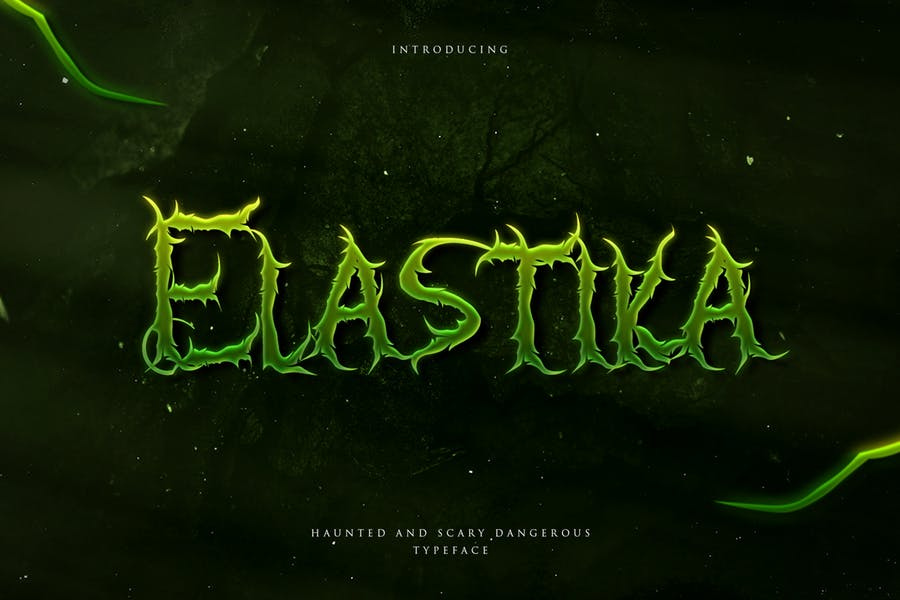
Elastika - Haunted Hand Drawing Display Typeface
Elastika Haunted Hand Drawing Display Typeface is perfect for horror movie posters, haunted attraction branding, Halloween marketing campaigns, spooky event invitations, gothic band merchandise, eerie game interfaces, supernatural book covers, creepy illustration projects, and atmospheric entertainment materials.
What makes Elastika Haunted Hand Drawing Display Typeface exciting is its spine-chilling ability to evoke supernatural dread through distorted, hand-drawn letterforms that appear to writhe and twist with otherworldly energy. The font features unnervingly elastic shapes with haunting irregularities that create the unsettling impression of letters drawn by ghostly hands or warped by supernatural forces. Its disturbing visual elasticity and eerie hand-drawn character make it perfect for brands that want to communicate psychological horror, supernatural terror, and the unsettling atmosphere of haunted environments while creating unforgettable experiences that genuinely frighten and captivate audiences.
Elastika Haunted Hand Drawing Display Typeface family includes various terrifying weights and distorted variations, often featuring supernatural alternates and haunting decorative elements. The family may include ghostly symbols, spectral ornaments, and elastic ligatures that amplify the font's frightening aesthetic, providing designers with comprehensive options for creating genuinely scary typographic compositions that capture the essence of supernatural horror and psychological terror.
This hauntingly elastic typeface has gained recognition among horror entertainment brands and supernatural-themed businesses seeking authentically terrifying typography solutions. Elastika Haunted Hand Drawing Display Typeface Free Download provides an excellent opportunity to unleash this supernatural font before investment. The font's character set includes haunting symbols and ghostly glyphs that work perfectly for horror entertainment and supernatural industry applications. Whether you're designing for horror film festivals, haunted experiences, or supernatural gaming companies, Elastika Haunted Hand Drawing Display Typeface delivers the psychological terror your project demands. Its versatile nature makes it suitable for various horror applications including escape rooms, paranormal investigation services, gothic fashion brands, and supernatural entertainment venues, ensuring your typography choices communicate genuine fear and supernatural atmosphere while creating memorable brand experiences that explore the darkest corners of human imagination through its distinctively disturbing and authentically haunted visual character.